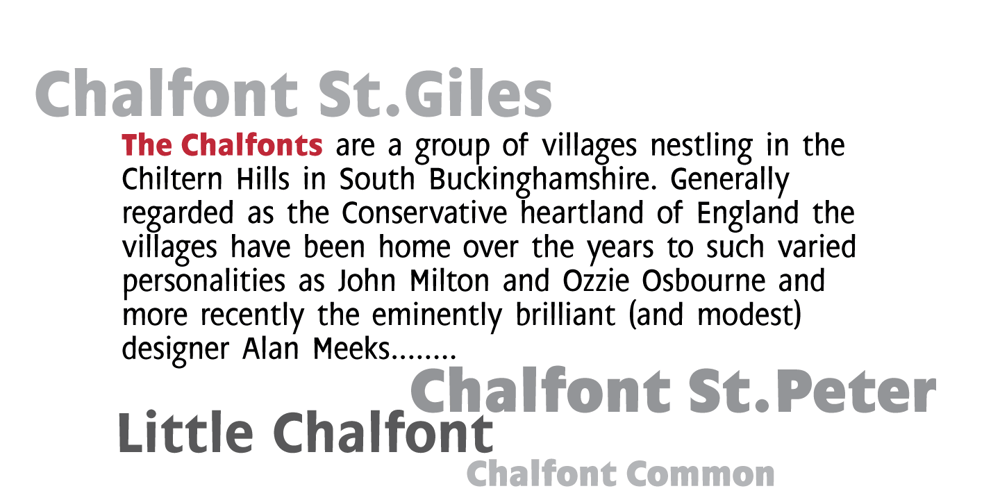
Chalfont Font Family was designed by Alan Meeks and published by Alan Meeks. Chalfont contains 7 styles and family package options. The typeface was designed after seeing a photocopy of some News Gothic text where the ink had faded on the bottom of each character. As character recognition is generally based on the top half of a character, readability was never compromised. Rather like Antique Olive the characters have a top heavy look when viewed straight on, however, as most type is read at an angle with the top further away than the bottom this top heavy look is diminished.